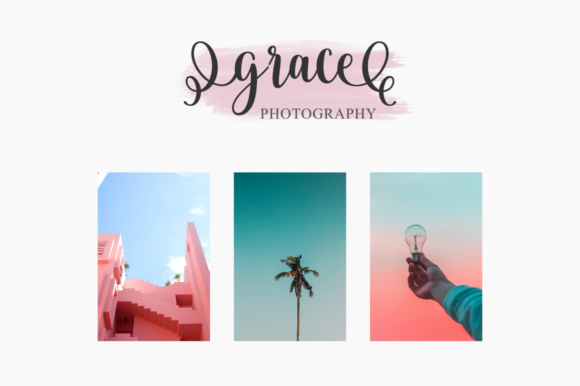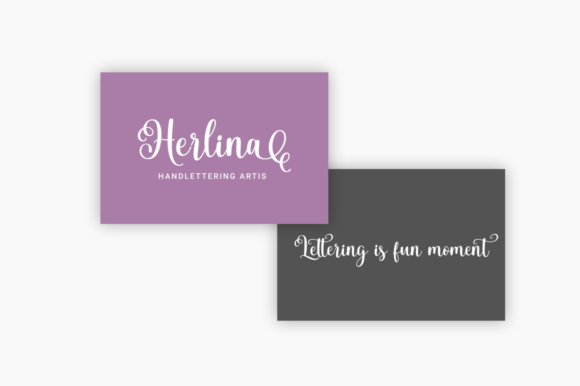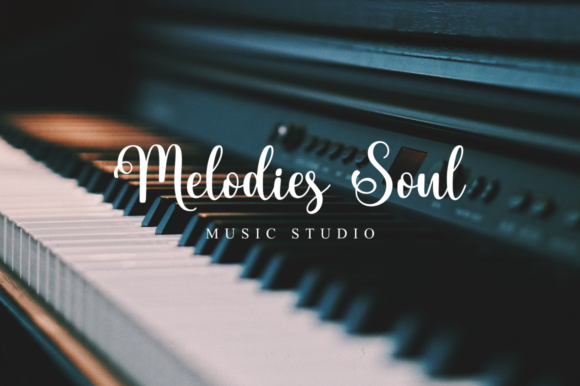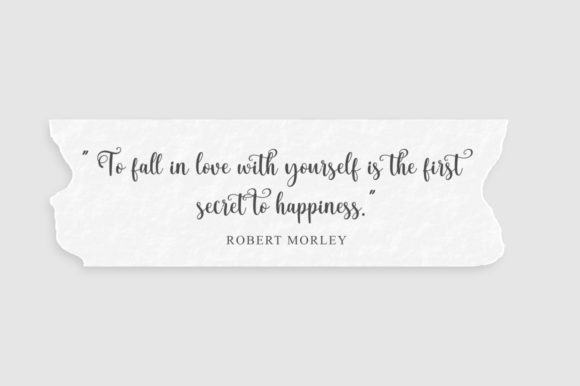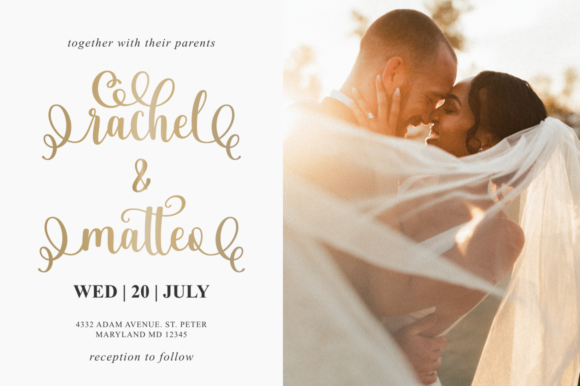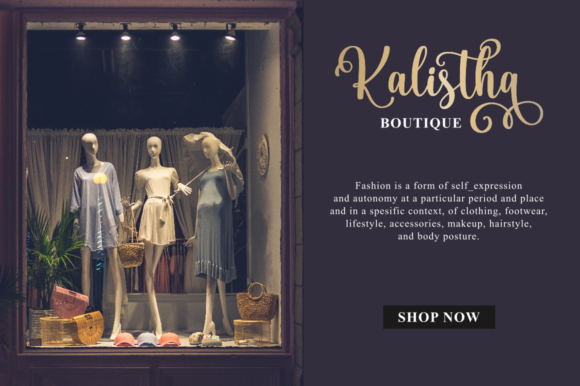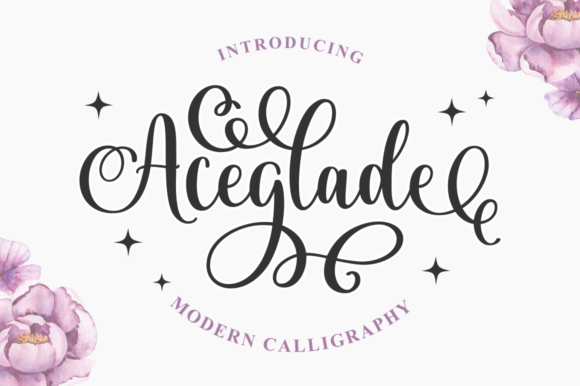
Aceglade Font: Elevate Your Designs with Elegance and Magic
In the realm of typography, few fonts manage to convey a sense of magic and elegance simultaneously. However, Aceglade Font achieves this feat with remarkable finesse. This beautifully crafted script font is not only a delight to the eyes but also a versatile tool for designers and crafters looking to add a touch of sophistication to their projects. In this article, we’ll delve into the features of Aceglade Font, exploring its unique attributes and the benefits it offers to creative professionals.
The Essence of Aceglade Font
Aceglade Font is described as a magical script font, and for good reason. Its elegant strokes and fluid connections between letters evoke a sense of whimsy and charm, making it perfect for projects that require a dash of personality. Whether you’re designing wedding invitations, crafting brand logos, or creating enchanting content for children’s books, Aceglade Font brings a level of sophistication and allure that’s hard to match.
PUA Encoding: Accessibility and Versatility
One of the standout features of Aceglade Font is its PUA (Private Use Area) encoding. This technical aspect allows users to access all the glyphs and swashes easily, providing a wealth of creative options at their fingertips. PUA encoding ensures that users can:
- Easily access and use a wide range of glyphs and swashes.
- Customize and experiment with different combinations to achieve unique designs.
- Save time and enhance productivity by having all the necessary tools within reach.
This level of accessibility is particularly beneficial for designers and crafters who value flexibility and efficiency in their workflow. With Aceglade Font, you can explore various design avenues without being limited by the font’s capabilities.
Applications of Aceglade Font
The versatility of Aceglade Font makes it suitable for a myriad of applications. Here are a few ideas to get you started:
- Wedding and Event Stationery: Create bespoke invitations, save-the-dates, and thank-you cards that exude elegance and romance.
- Branding and Logos: Use Aceglade Font to craft memorable brand identities that stand out with their unique blend of sophistication and charm.
- Children’s Books and Educational Materials: Add a touch of magic to storybooks, activity sheets, and educational resources with Aceglade’s enchanting script.
- Social Media Graphics and Blog Posts: Elevate your online content with custom graphics, headers, and quotes that showcase Aceglade Font’s captivating style.
Tips for Getting the Most Out of Aceglade Font
To truly harness the creative potential of Aceglade Font, consider the following tips:
- Experiment with Swashes: Don’t be afraid to try out different swashes and glyphs to add flair to your designs.
- Mix and Match: Combine Aceglade Font with complementary fonts to create visually appealing contrasts and hierarchies.
- Pay Attention to Kerning: Adjust the spacing between letters to ensure your text is easy to read and visually balanced.
Aceglade Font is more than just a script font; it’s a gateway to creating enchanting, elegant, and professional designs. Its magical charm, combined with the practical benefits of PUA encoding, makes it an invaluable asset for designers and crafters. Whether you’re embarking on a new project or looking to refresh your brand’s visual identity, Aceglade Font offers the perfect blend of style, versatility, and creativity. So why not let Aceglade Font cast its spell on your designs and elevate them to new heights of elegance and sophistication?